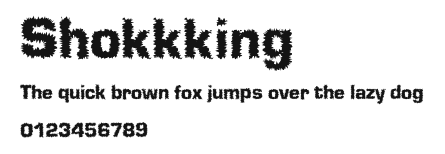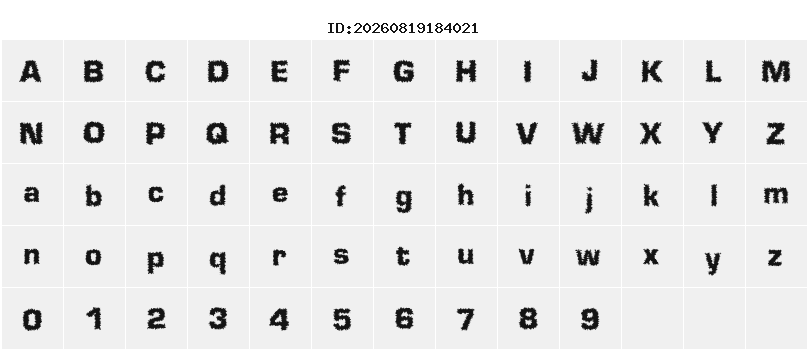
• Font Name: Shokkking
• Font ID: redbikini.com: Shokkking Black: 2006
• Full Font Name: Shokkking Black
• Designer: Sven Heyckendorf
• Manufacturer: redbikini.com
About Shokkking.ttf
Shokkking.ttf is a modern, elegant sans-serif font designed for ultimate readability and visual harmony. Perfect for branding, headlines, web design, and print materials.